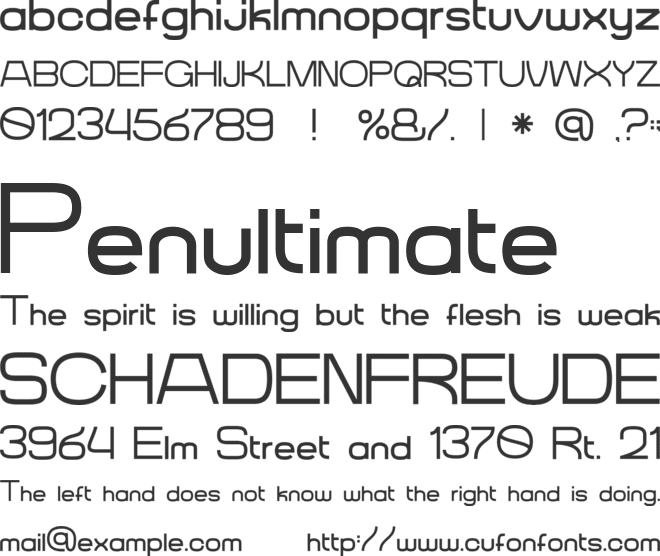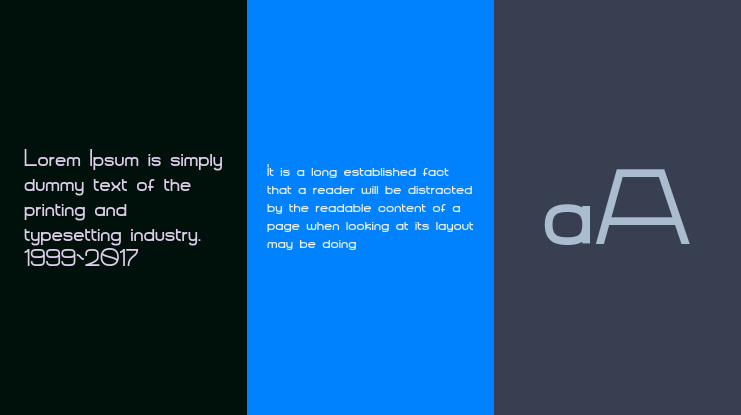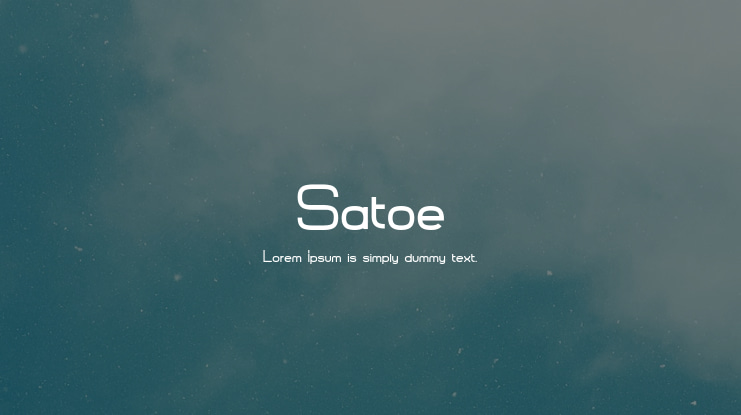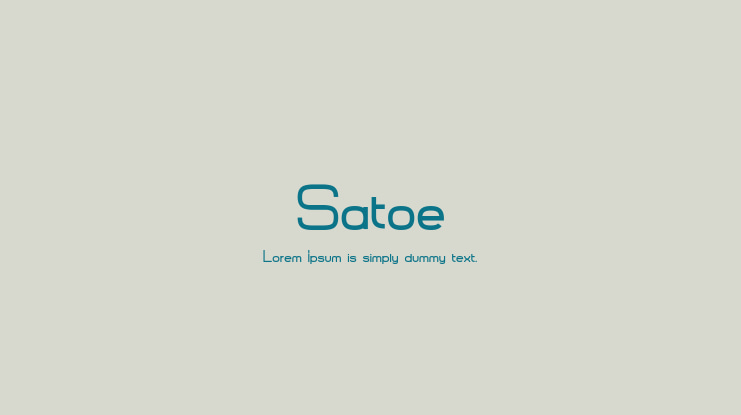
Satoe Font
Satoe is a versatile sans-serif font inspired by the harmony of Bauhaus architecture and Swiss Design principles. With its clean lines, geometric precision, and minimalist aesthetic, it’s designed to meet the needs of modern creative and professional projects.
Ideal for modern branding, editorial layouts, and digital interfaces, Satoe delivers structured and polished visuals. Its timeless design ensures adaptability across industries such as graphic design, architecture, fashion, and technology.